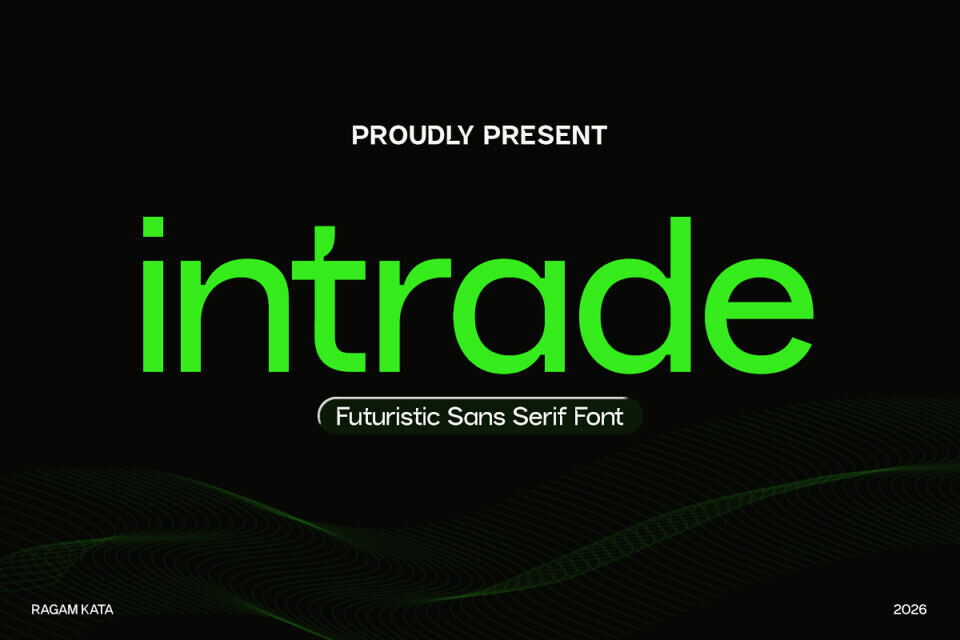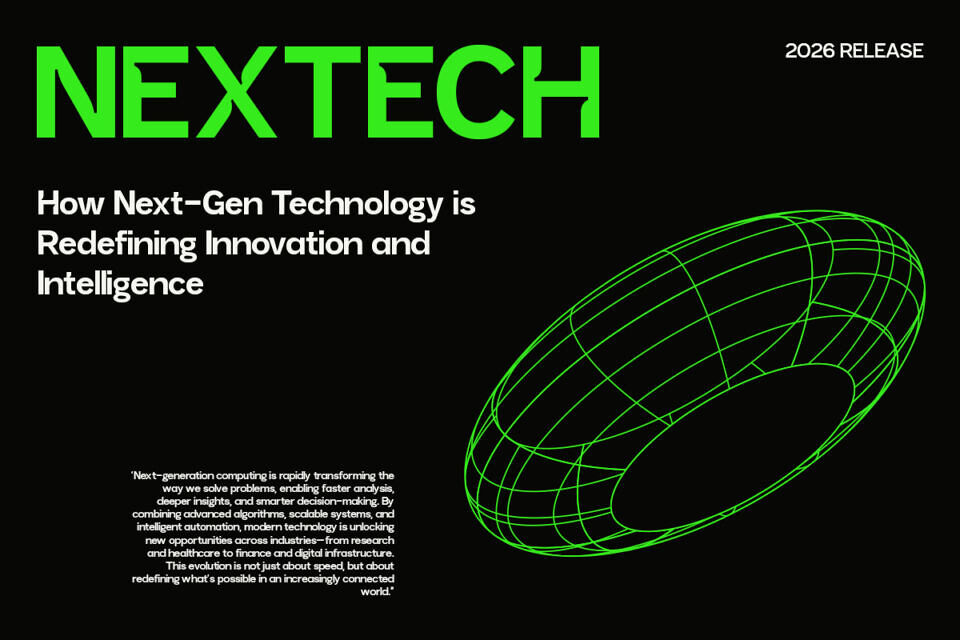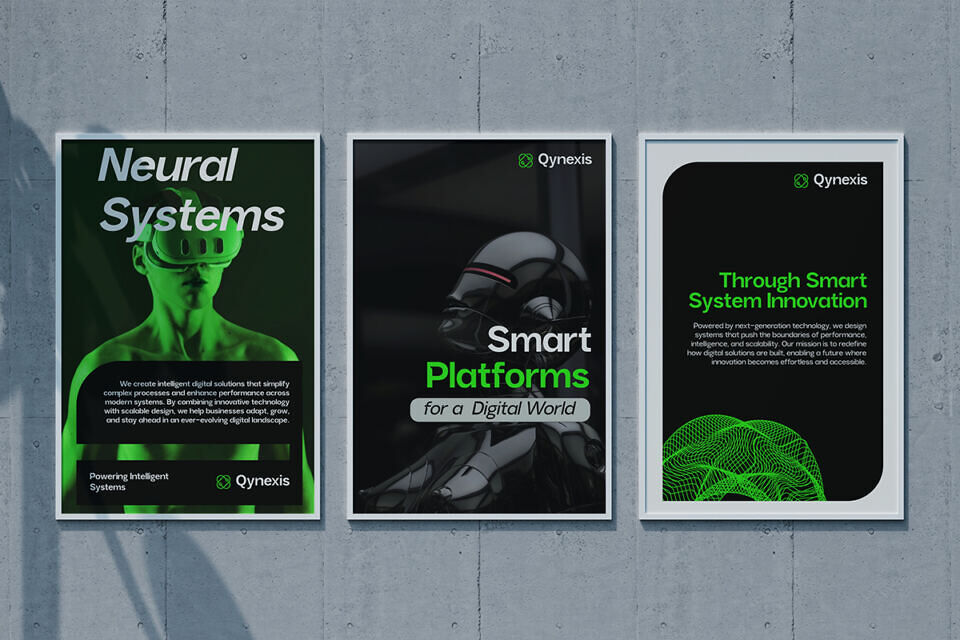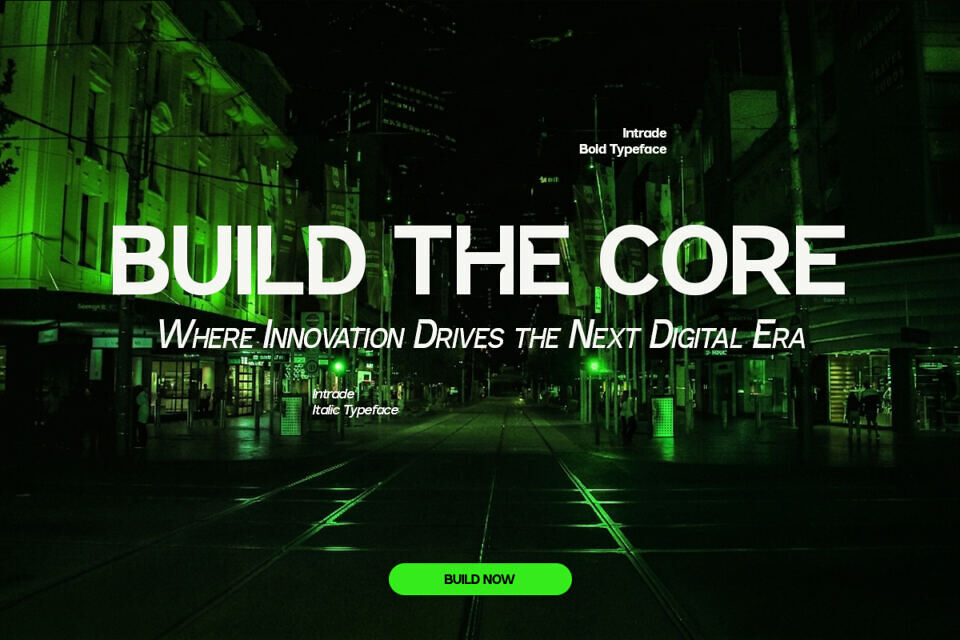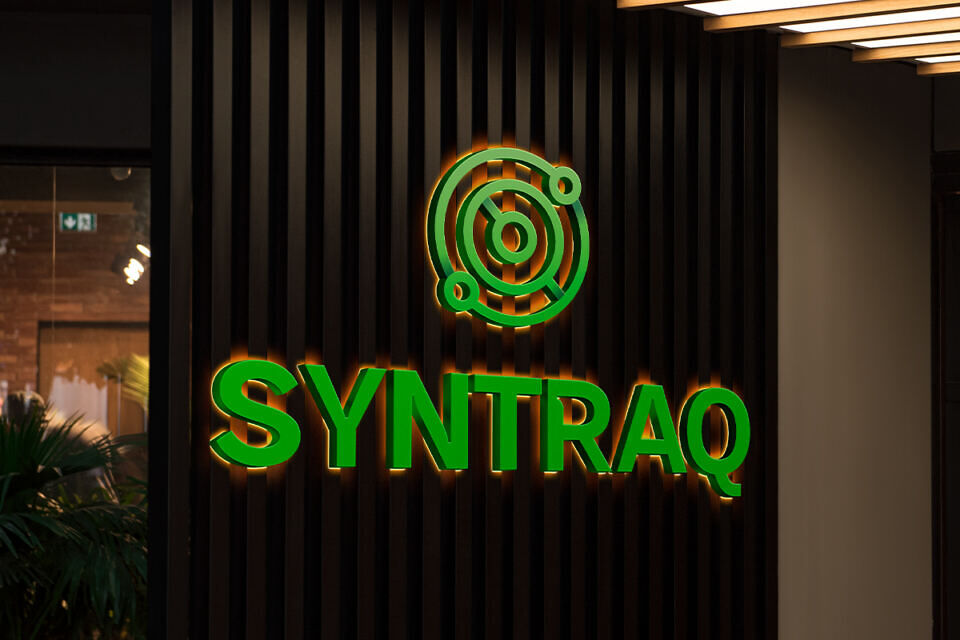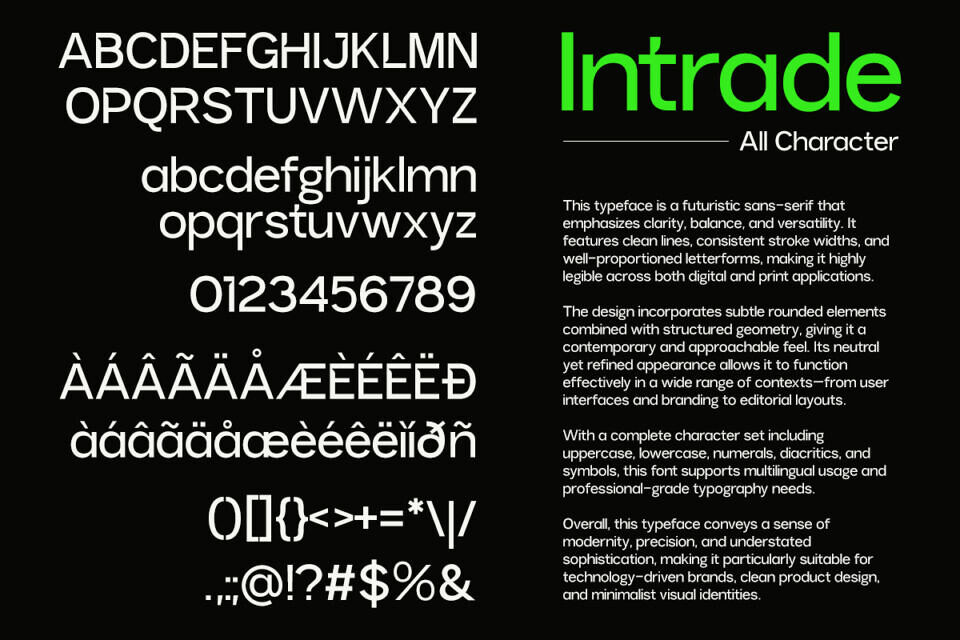
Intrade is a futuristic sans serif font designed to capture the essence of modern technology and digital innovation. With its clean geometric structure and smooth curves, Intrade delivers a sleek and forward-thinking aesthetic that feels both minimal and powerful. The balanced proportions and sharp design make it perfect for creating a strong and professional visual identity.
Inspired by cutting-edge tech, startups, and sci-fi visuals, Intrade is ideal for projects that require a modern and high-tech appearance. Whether you’re working on branding, UI design, gaming titles, digital products, or tech presentations, this font brings clarity, precision, and a futuristic edge to your work.